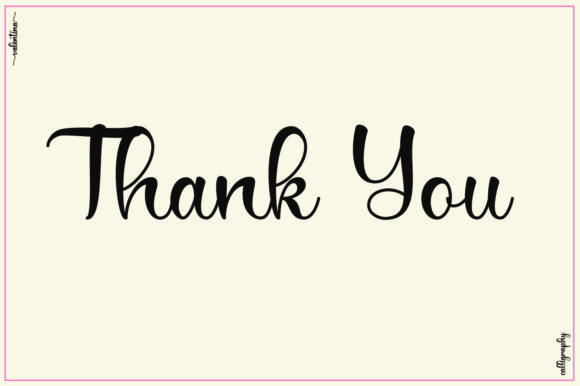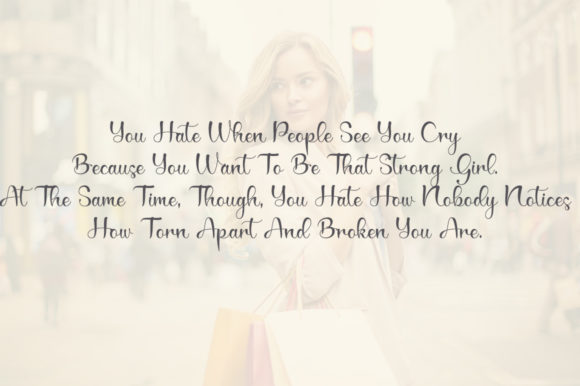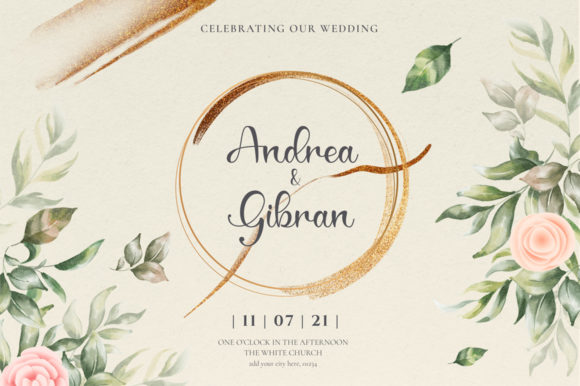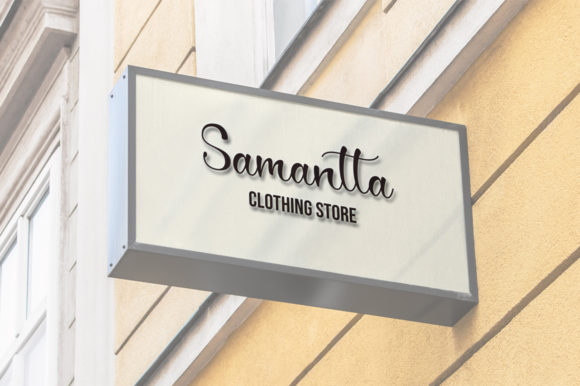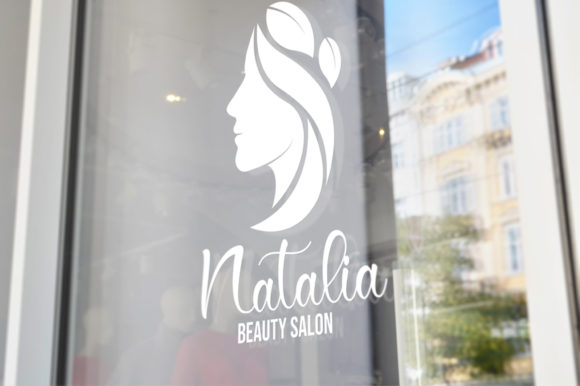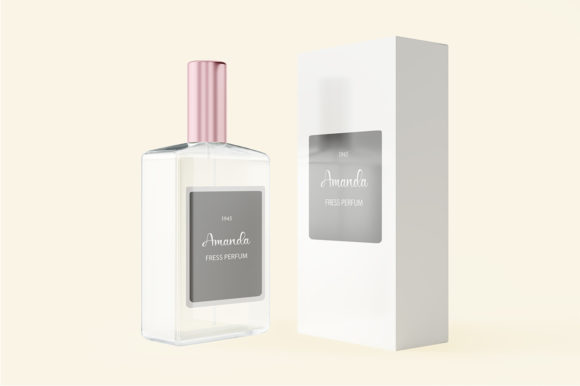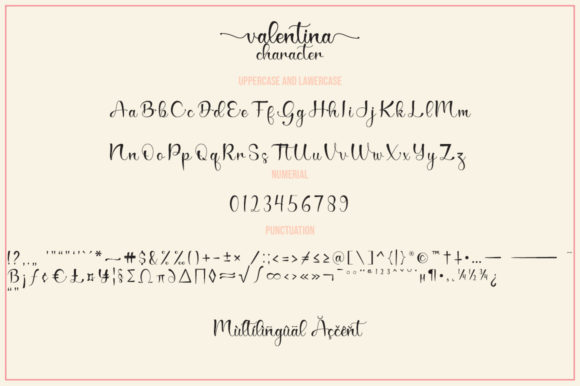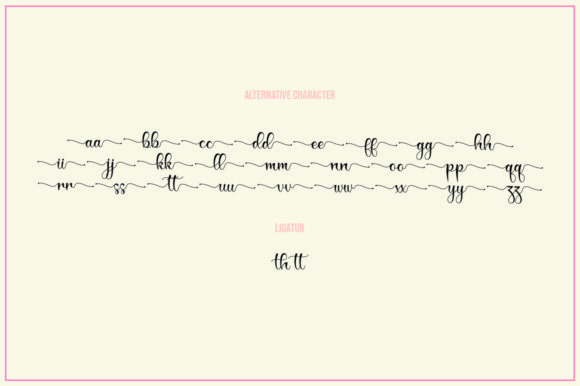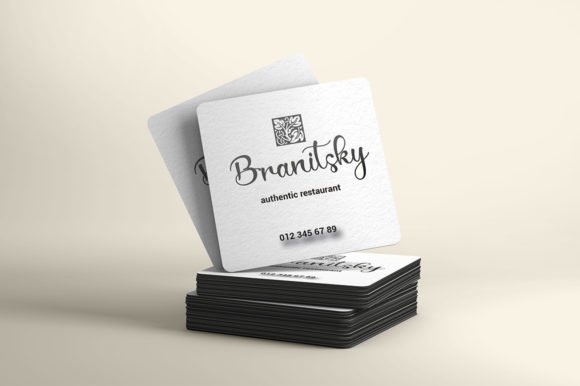
Valentina Font
About Valentina Font
Valentina is a flowing handwritten font. It features a varying baseline, smooth lines, gorgeous glyphs and stunning alternates. It looks stunning on wedding invitations, thank you cards, quotes, greeting cards, logos, business cards and every other design which needs a handwritten touch.